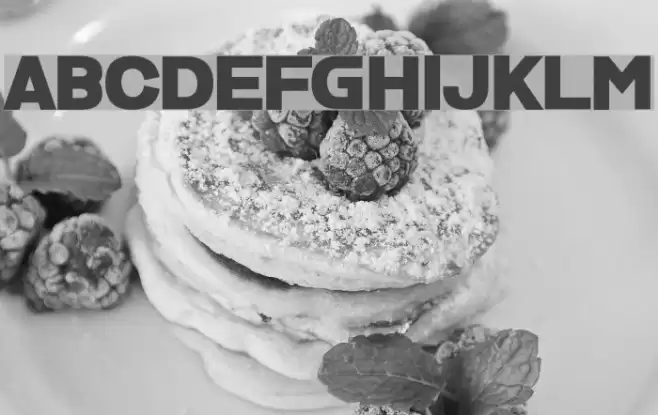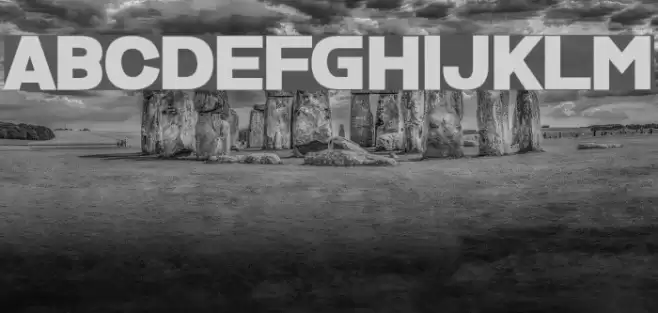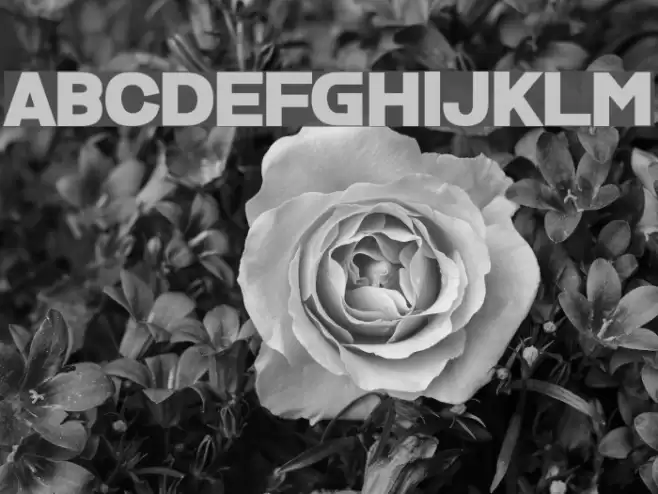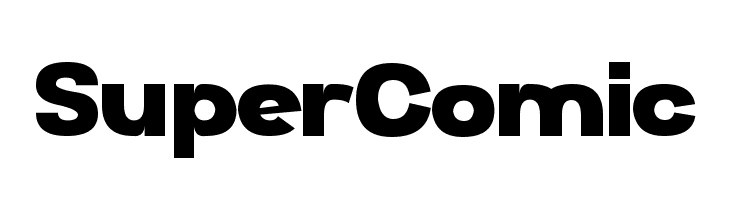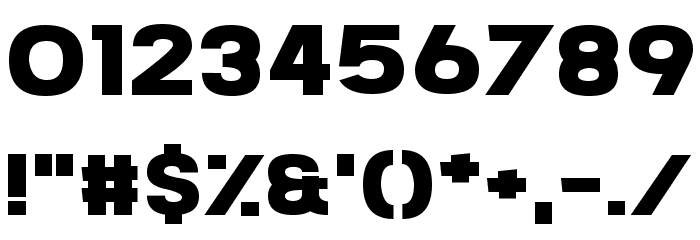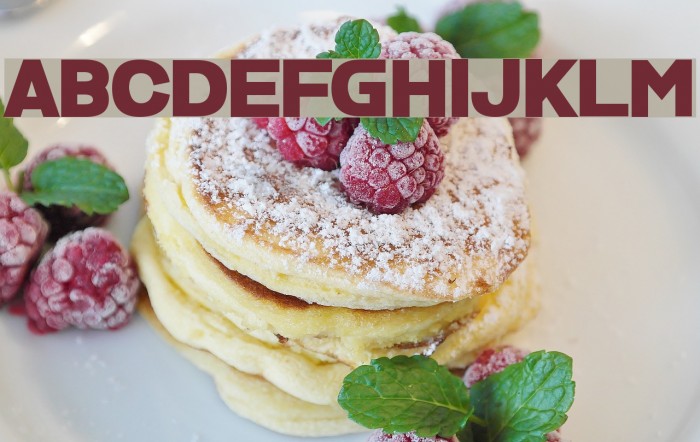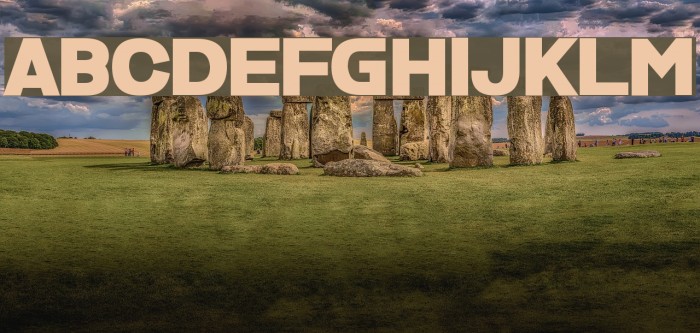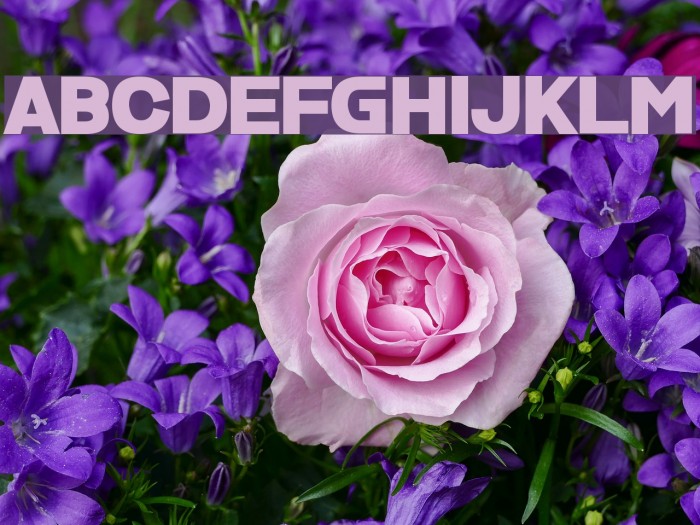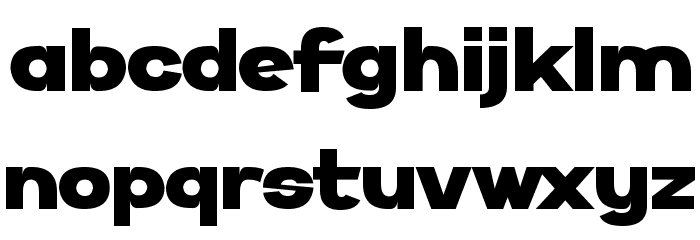
Super Comic Font
Super Comic Description
This font features bold, rounded characters with a strong presence, making it ideal for attention-grabbing designs. The uppercase letters are robust and evenly spaced, while the lowercase letters maintain a consistent weight and style. The numerals are clear and easy to read, complementing the overall bold aesthetic. Special characters are designed with the same boldness, ensuring consistency throughout. The font's thick strokes and rounded edges give it a friendly yet assertive appearance, suitable for a variety of creative projects.
A bold, rounded font with a strong, friendly presence from Uncategorized fonts.
- Proposed Projects: Ideal for comic book titles, posters, branding, and any design requiring a bold statement.